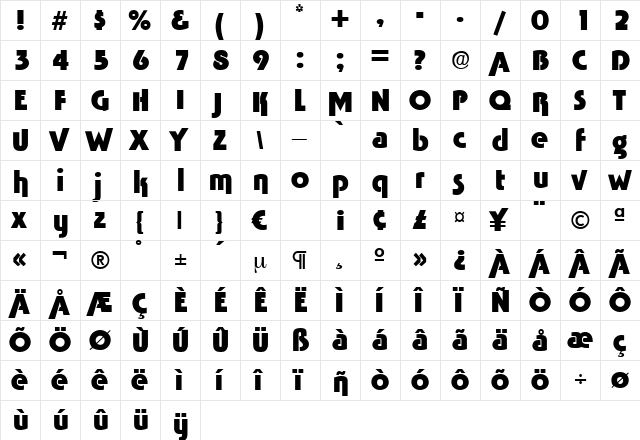
TabascoBold Regular
Design Context for TabascoBold Typeface
TabascoBold offers clean, dependable letterforms without strong stylistic allegiance, making it a practical choice for designers who need flexibility. Its bold stroke weight gives it real presence on the page.
Pro Tip: Pair TabascoBold with a font of contrasting weight or personality to build a more expressive typographic hierarchy.